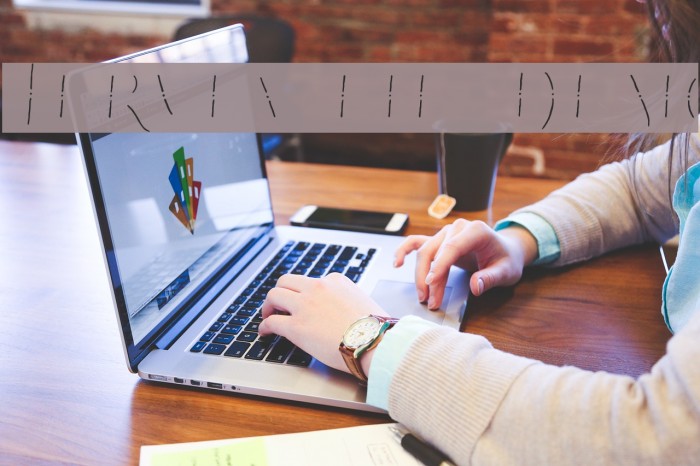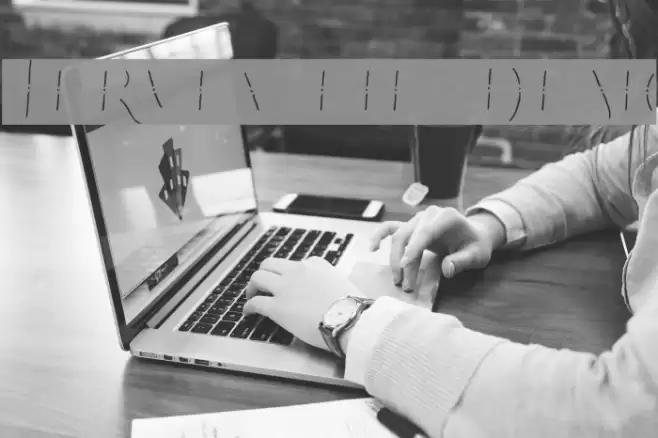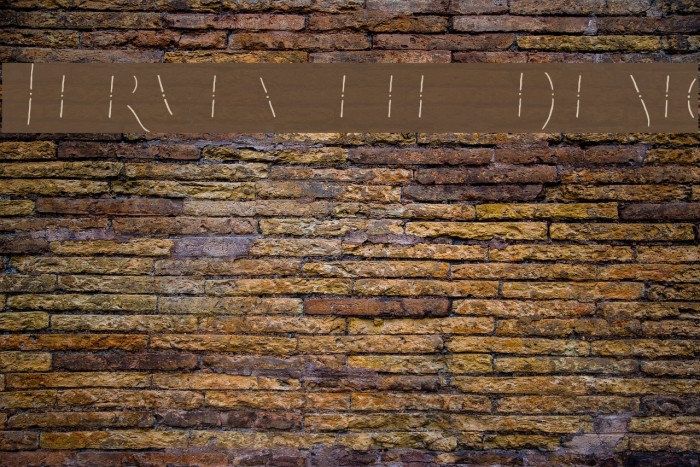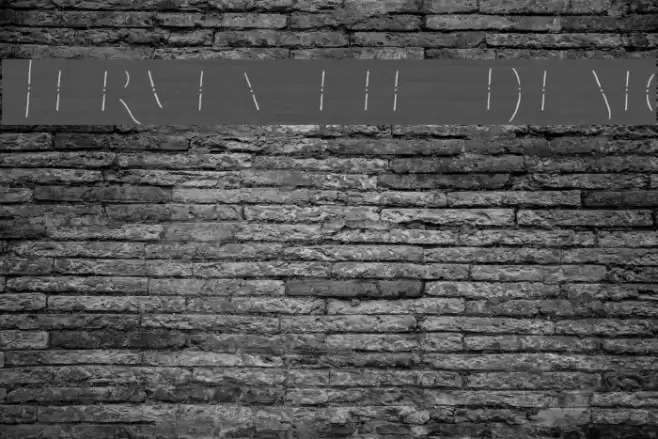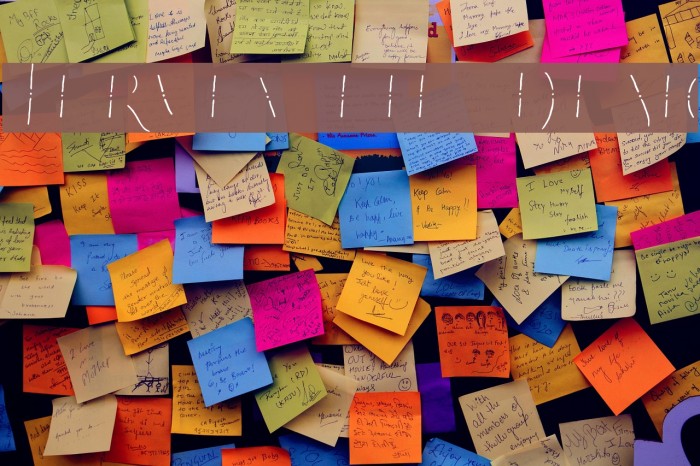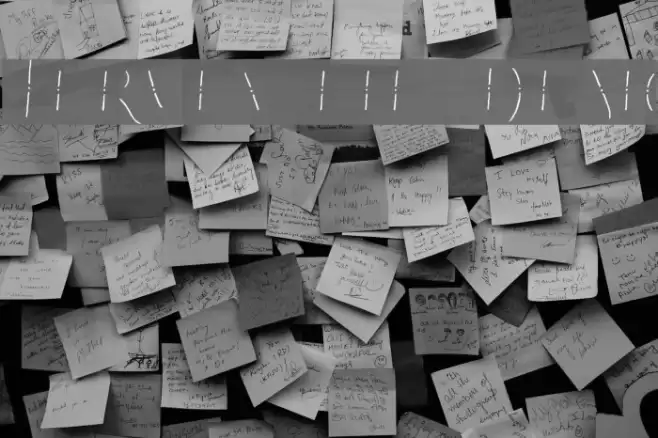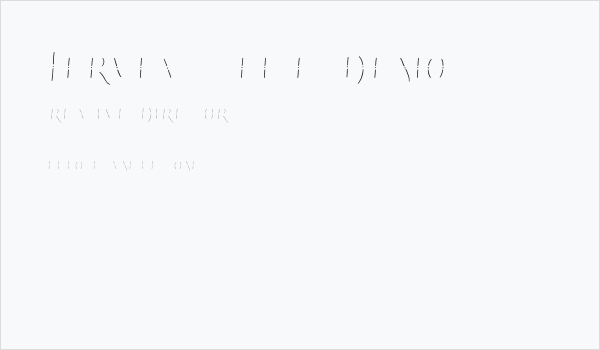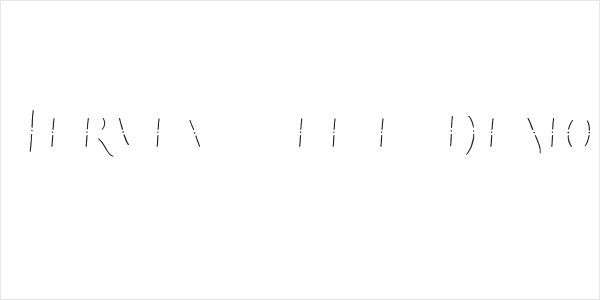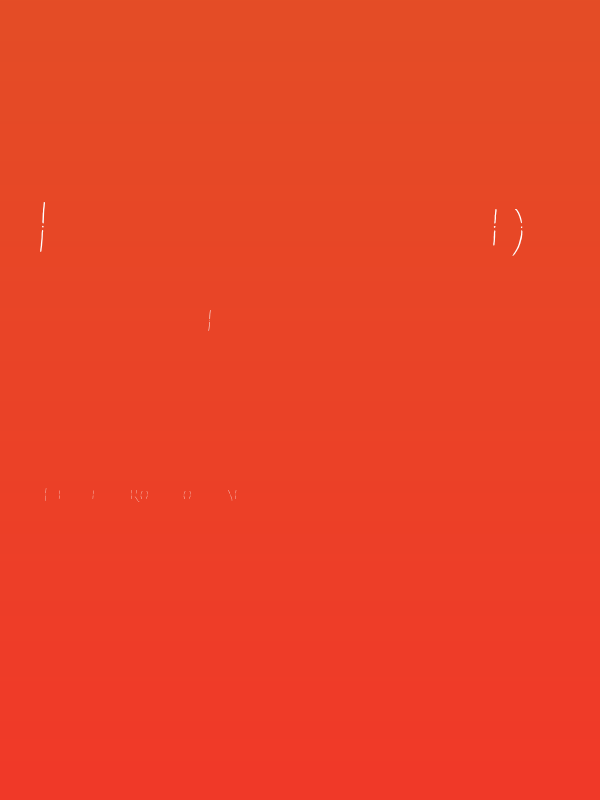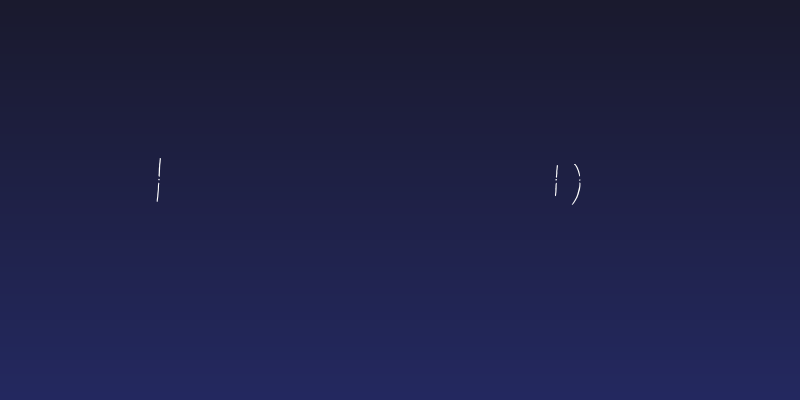
Tervia Inline Demo Font
Tervia Inline Demo Description
This font features a unique inline design with a modern twist. Each character is crafted with a delicate balance of thin and thick strokes, creating an elegant and sophisticated appearance. The inline style adds a sense of depth and dimension, making it stand out in any design. The characters are well-spaced, ensuring readability while maintaining a stylish look. This font is perfect for projects that require a touch of elegance and modernity, such as branding, invitations, and editorial design. Its distinctive style makes it suitable for both digital and print media, offering versatility and a contemporary aesthetic.
| Use Case | Logos, Headlines |
| Proposed Projects | Branding, invitations, editorial design, digital and print media. |